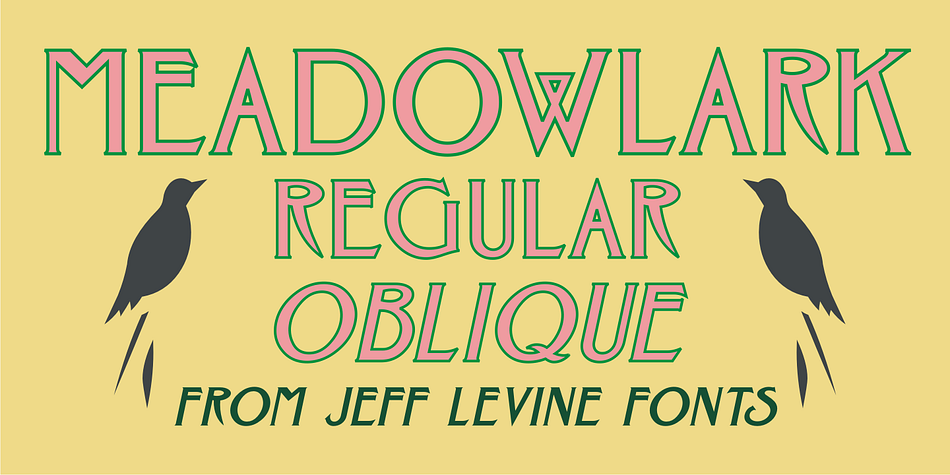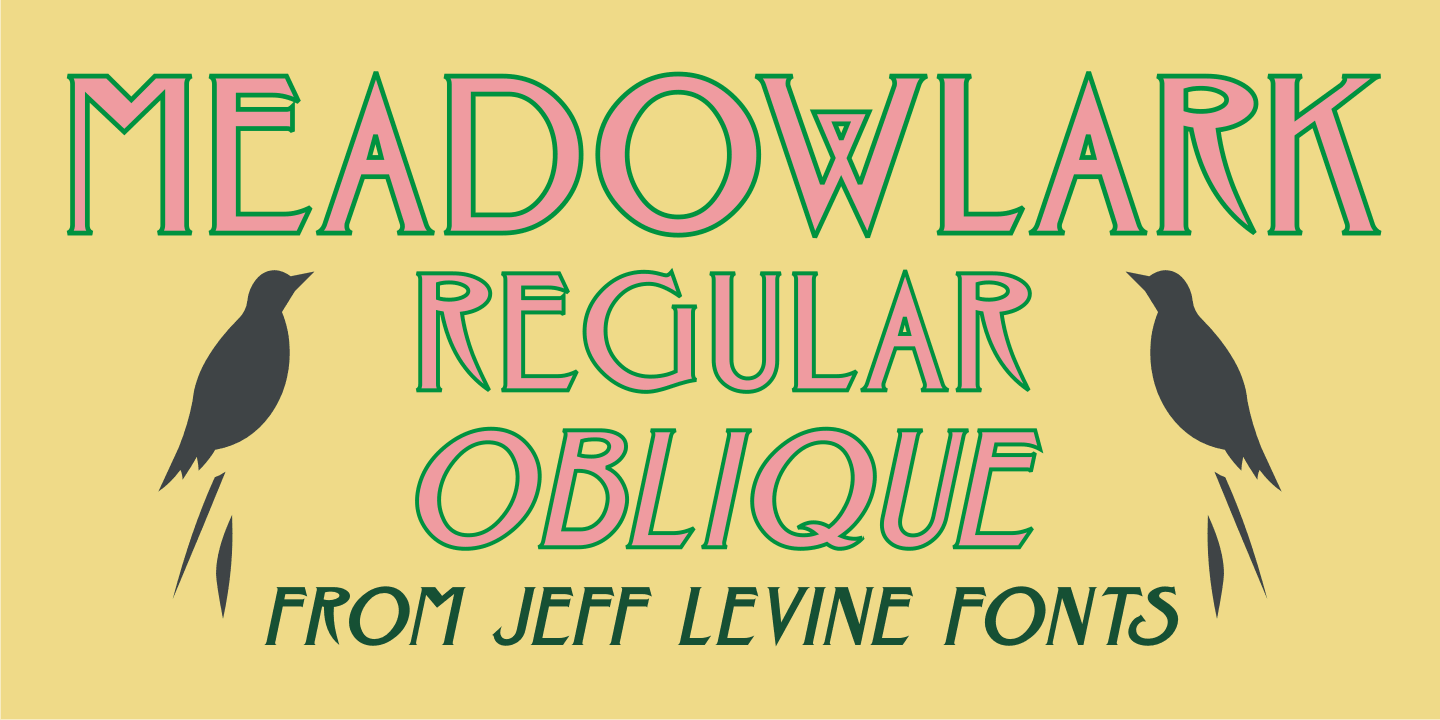
Meadowlark JNL is a display serif and art nouveau font family. This typeface has two styles and was published by Jeff Levine Fonts.
The cover of the 1908 sheet music for “When the Meadow-Larks Are Calling, Annie Laurie” has the title hand lettered in a semi-formal Art Nouveau Roman type design with gentle spurs.
This is now available as Meadowlark JNL in both regular and oblique versions.